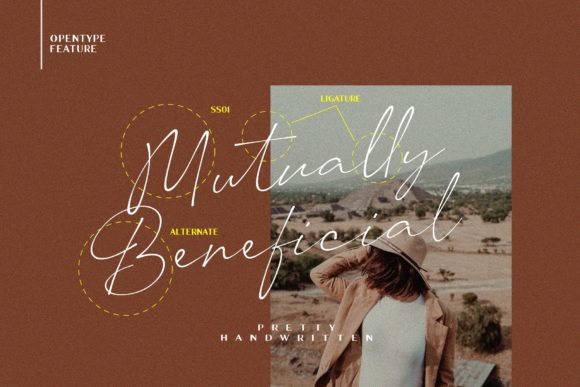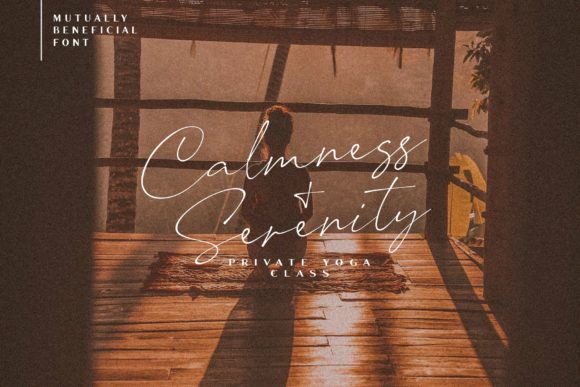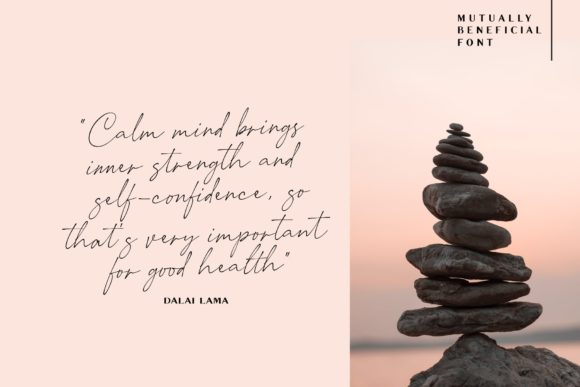
Introduction to Mutually Beneficial Font
As a designer, have you ever stared at a blank canvas, trying to bring a creative project to life? The blank page can be intimidating, but the right design resource can make all the difference. For me, it was the discovery of the Mutually Beneficial Font that sparked a wave of inspiration. This high-quality, free download font is a game-changer for any design project that requires a touch of elegance and whimsy.
With its flowing, handwritten style, the Mutually Beneficial Font is perfect for wedding invitations, thank you cards, and logos that need a personal touch. The PUA encoding feature allows designers to access all of the glyphs and swashes with ease, making it a valuable addition to any design toolbox. Whether you’re working on a creative project or simply need a design resource with a transparent background, the Mutually Beneficial Font is sure to deliver.
- This design resource features a modern and elegant design, perfect for various creative projects, including logos, brochures, and business cards.
Honest Review: Mutually Beneficial Font
I recently stumbled upon the Mutually Beneficial Font and was excited to try it out. As a designer, I’m always on the lookout for high quality design resources that can elevate my creative projects. This font is a free download, which is a definite plus in my book.
One of the things that works well with this font is its versatility. The Mutually Beneficial Font comes in a range of weights and styles, making it perfect for everything from body text to headings. The transparent background also makes it easy to use with any design element.
That being said, I do have a few limitations to mention:
- Some of the letters may appear a bit too condensed for certain font sizes
- The font may not be suitable for very small or very large text sizes
⚠️ Despite these limitations, I still think the Mutually Beneficial Font is a great addition to any designer’s toolkit. It’s a high quality, free design resource that’s perfect for a wide range of creative projects. Overall impression: 4/5 stars.
Common Use Cases for the Mutually Beneficial Font
The Mutually Beneficial Font is ideal for use in a variety of creative projects, including brochures, flyers, and business cards. Its clean design and transparent background make it a versatile design resource that can be used across multiple platforms and industries.